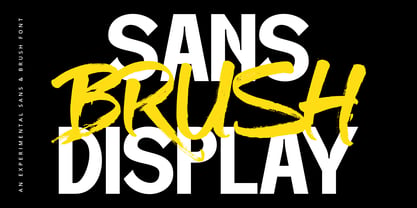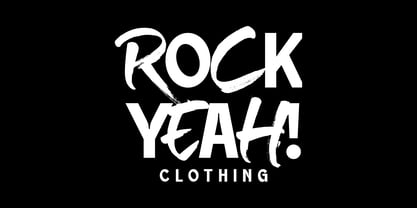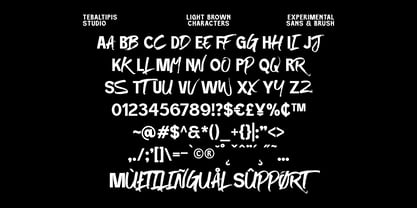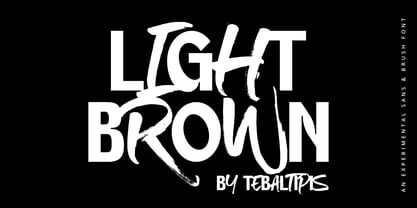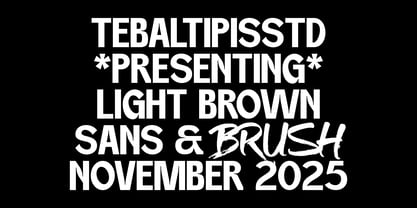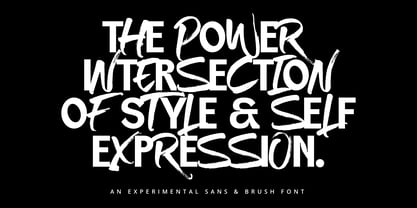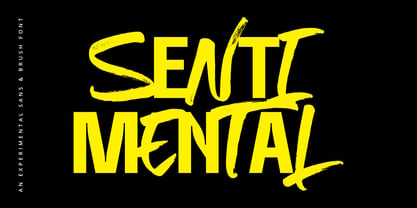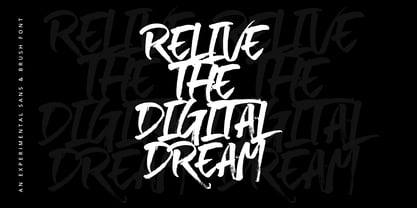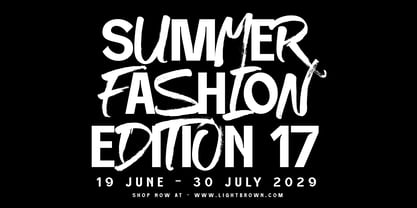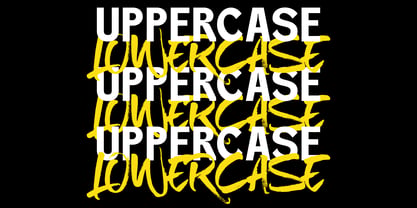
Light Brown Display
by Tebaltipis Studio
The Light Brown Display Font Family was designed by Dzulka Elfira and published by Tebaltipis Studio. Light Brown Display contains 1 styles. More about this family
Light Brown is a bold and expressive display font that perfectly blends clean sans-serif structure with energetic brush strokes. Designed to make a statement, this font brings creativity, movement, and attitude to your design projects. Whether you're crafting posters, album covers, branding, or social media visuals, Light Brown adds a modern yet handcrafted vibe that instantly grabs attention.
Designers: Dzulka Elfira
Foundry: Tebaltipis Studio